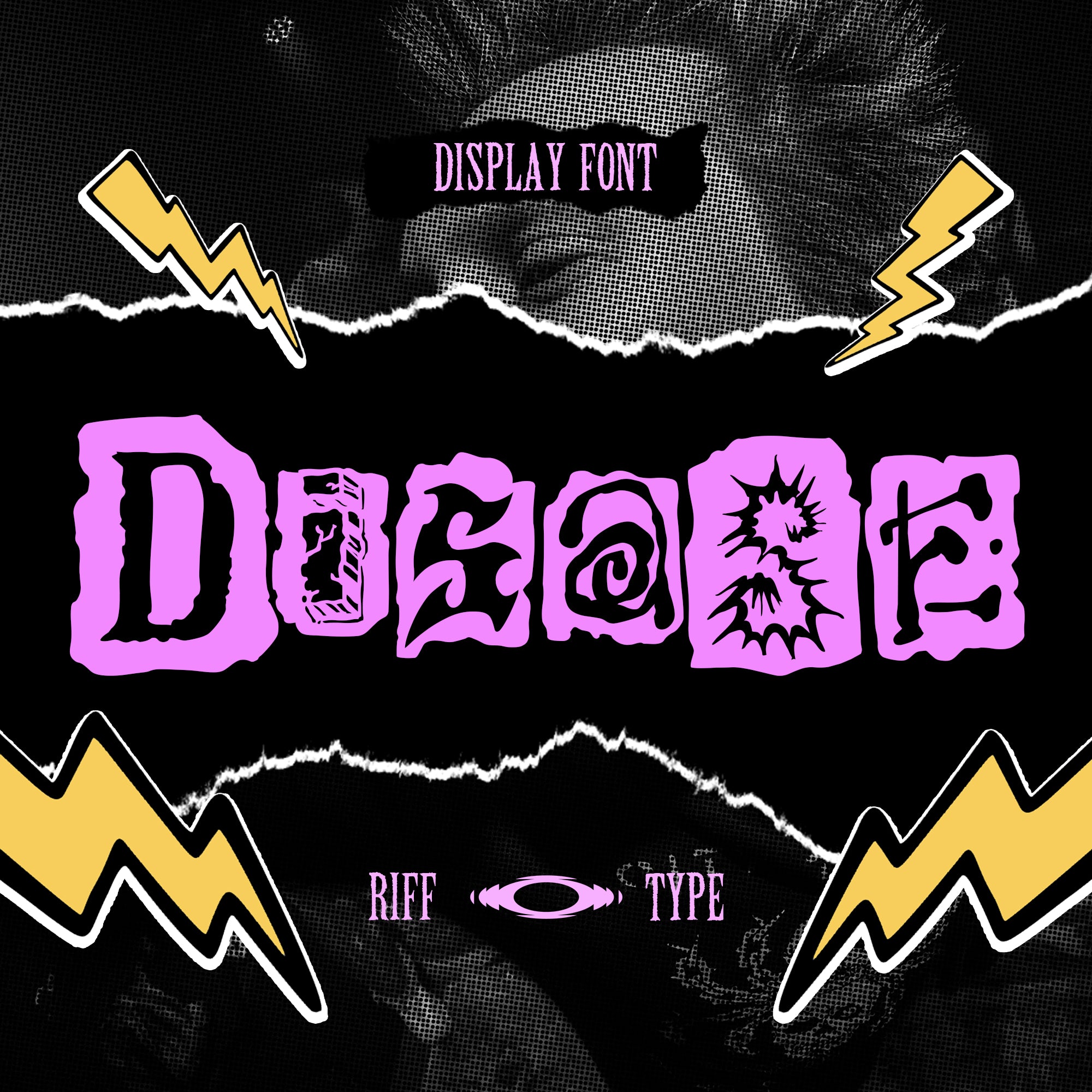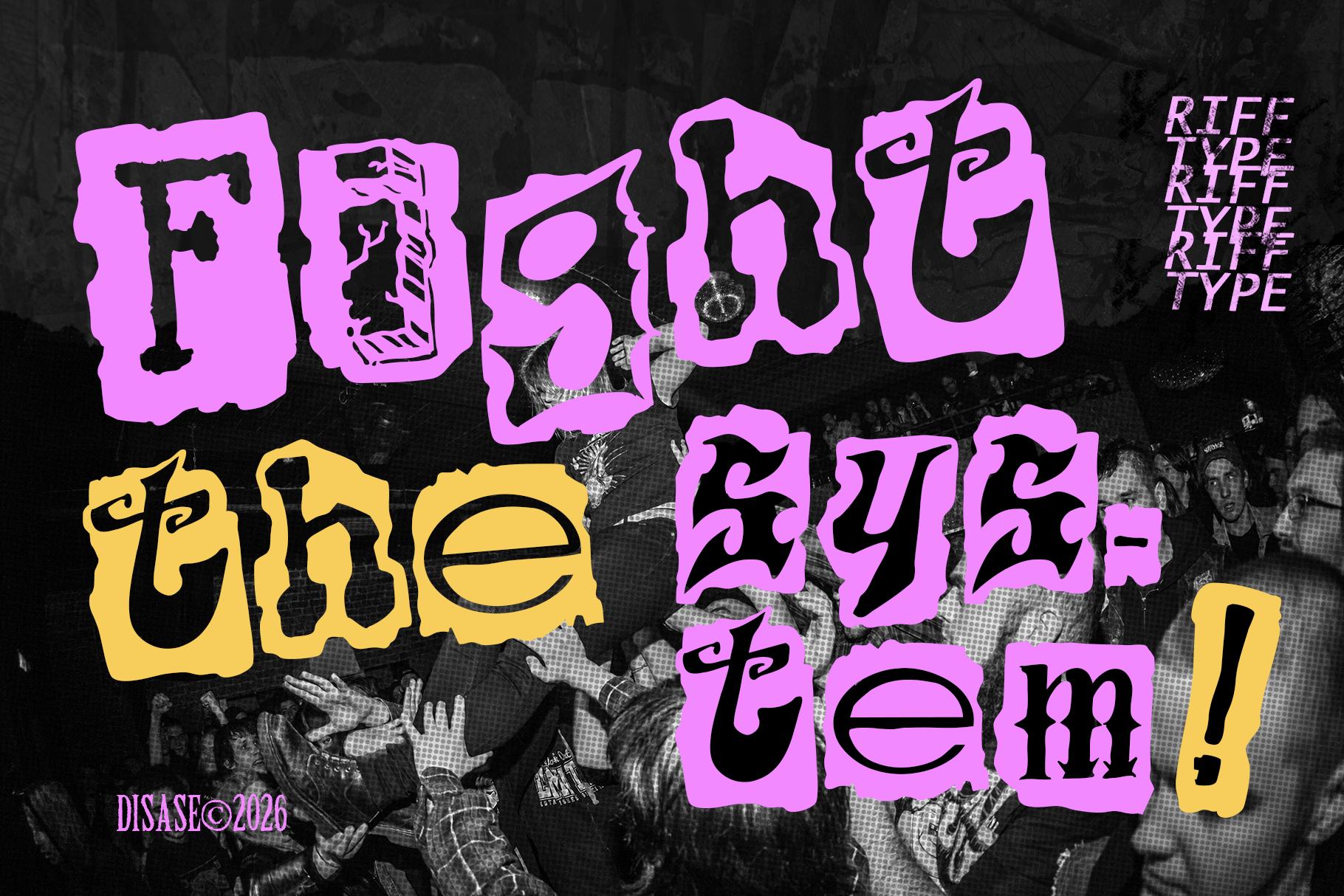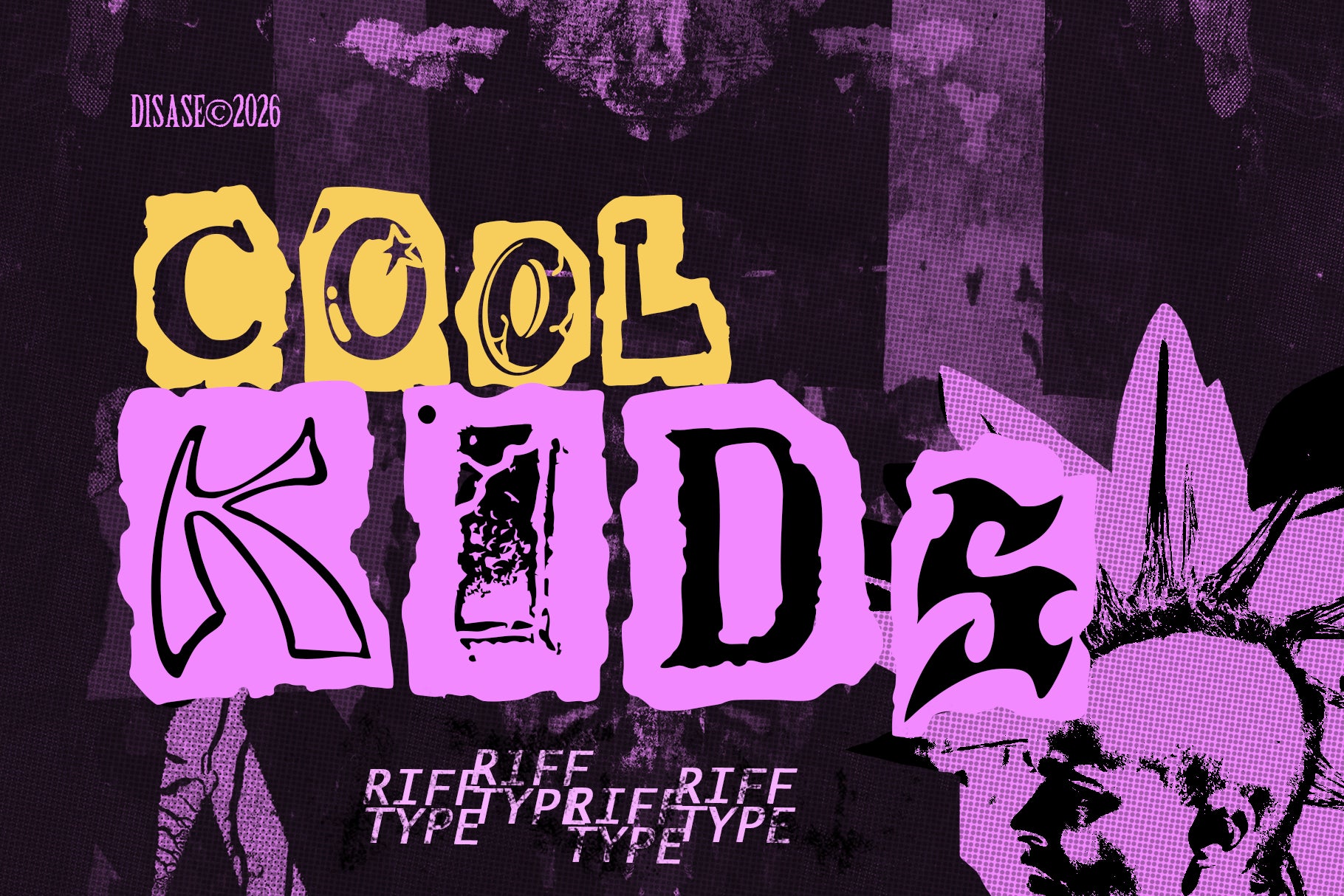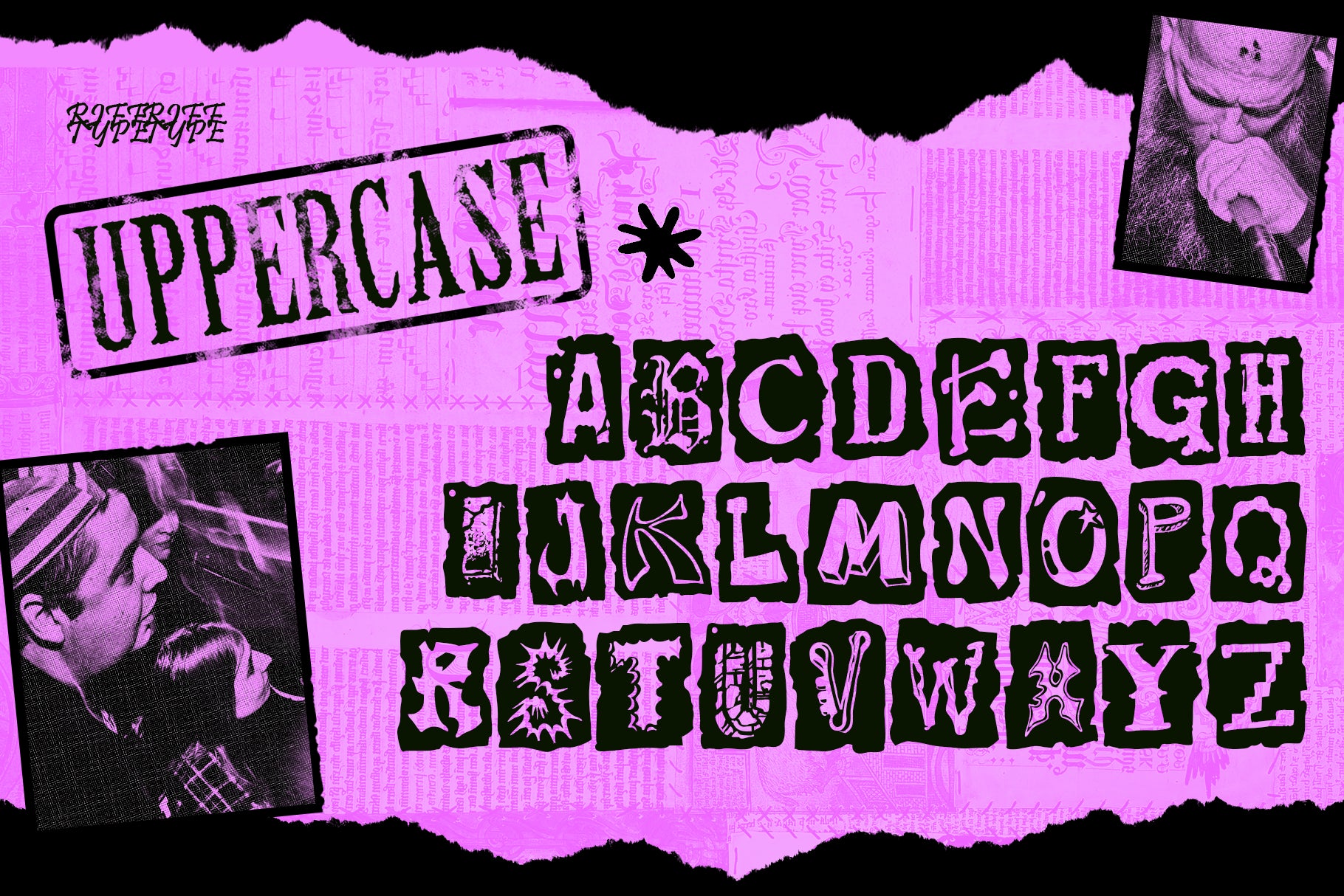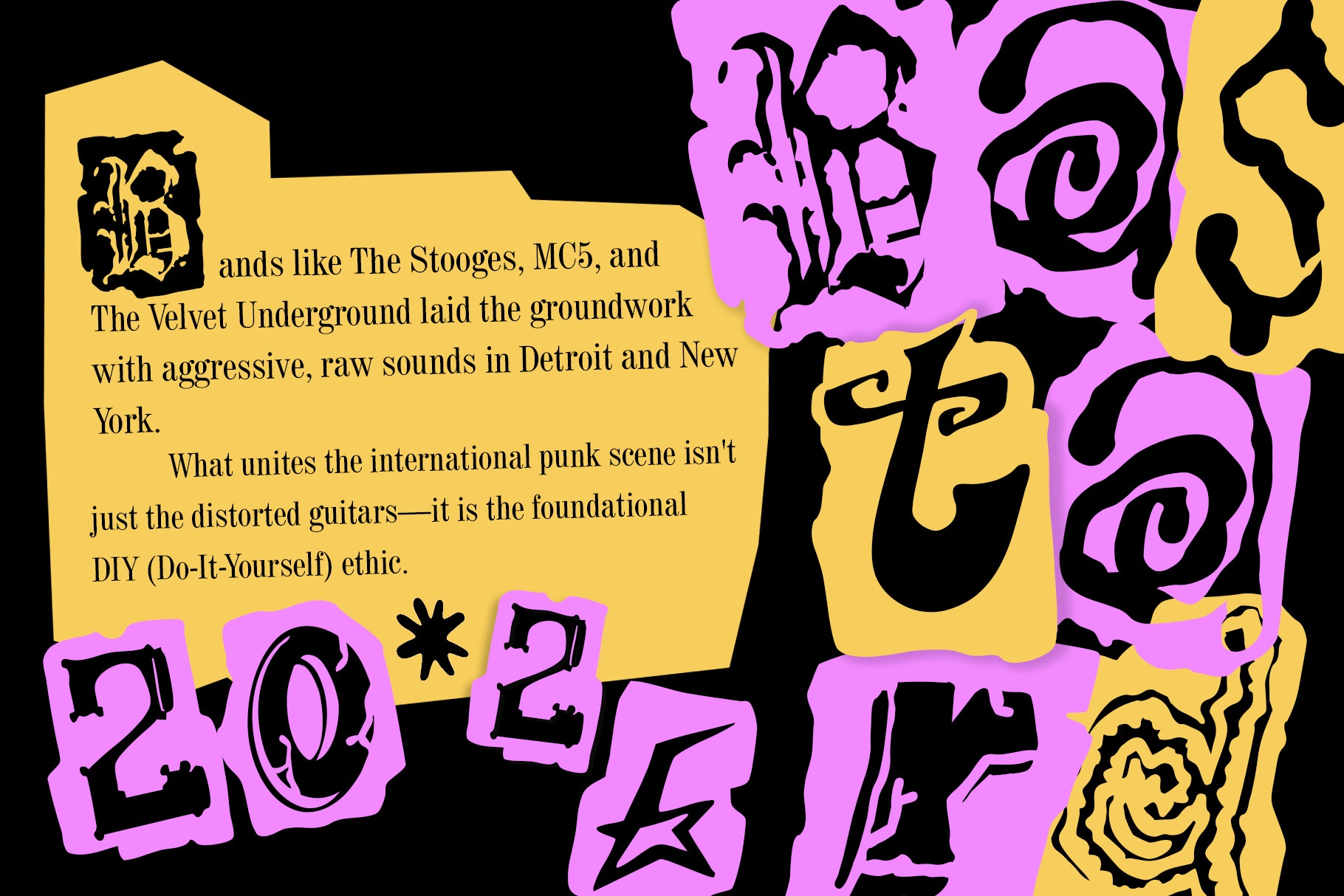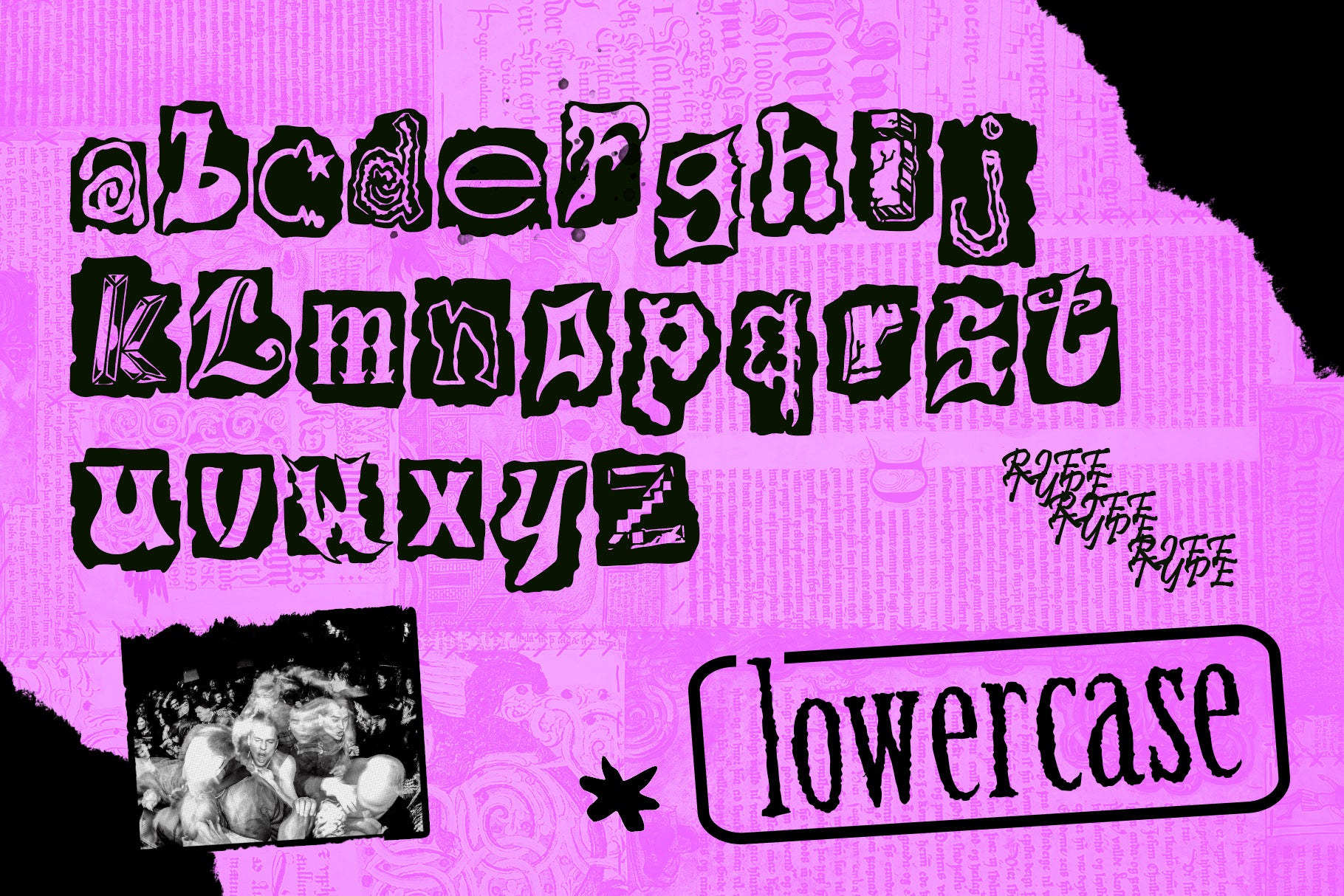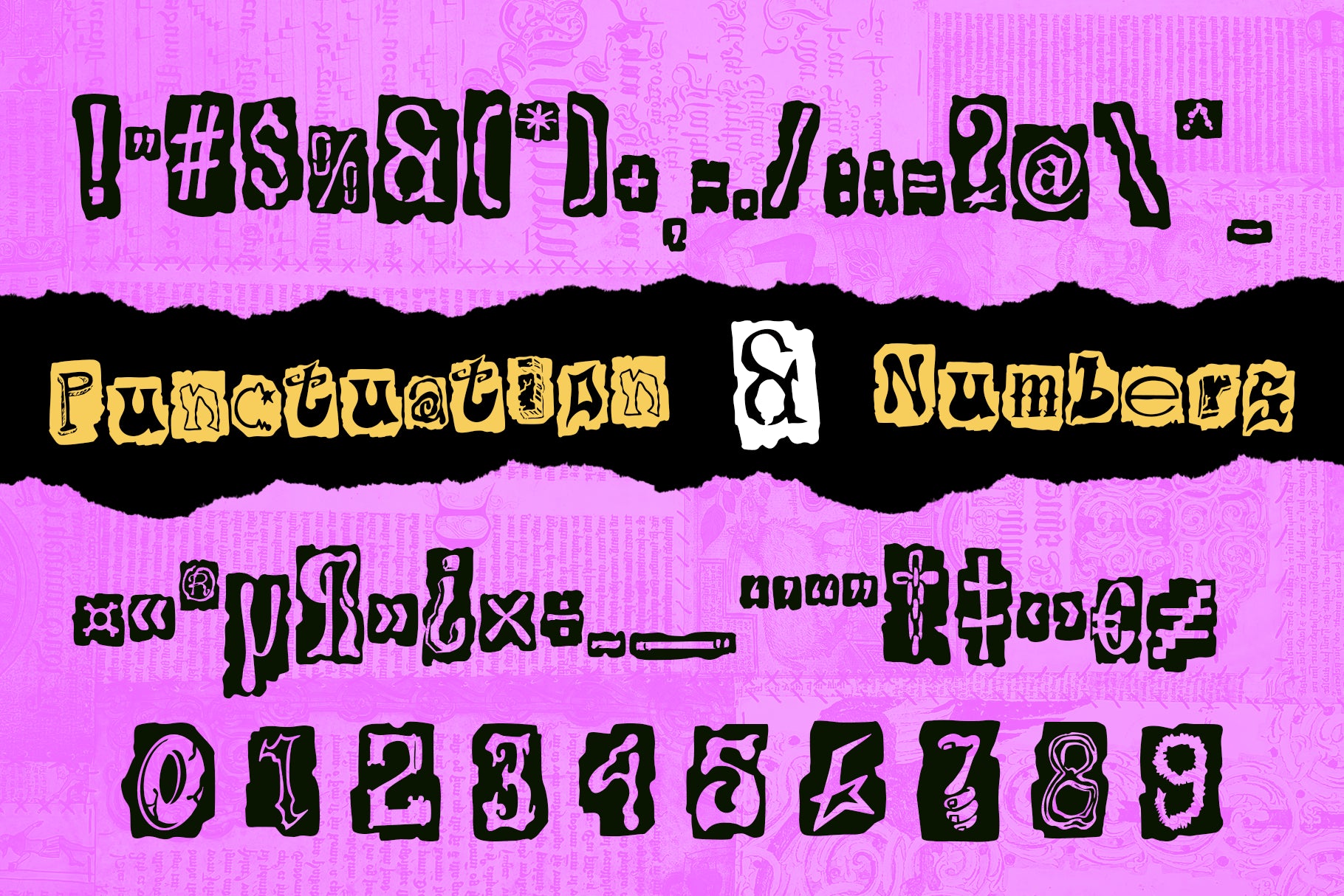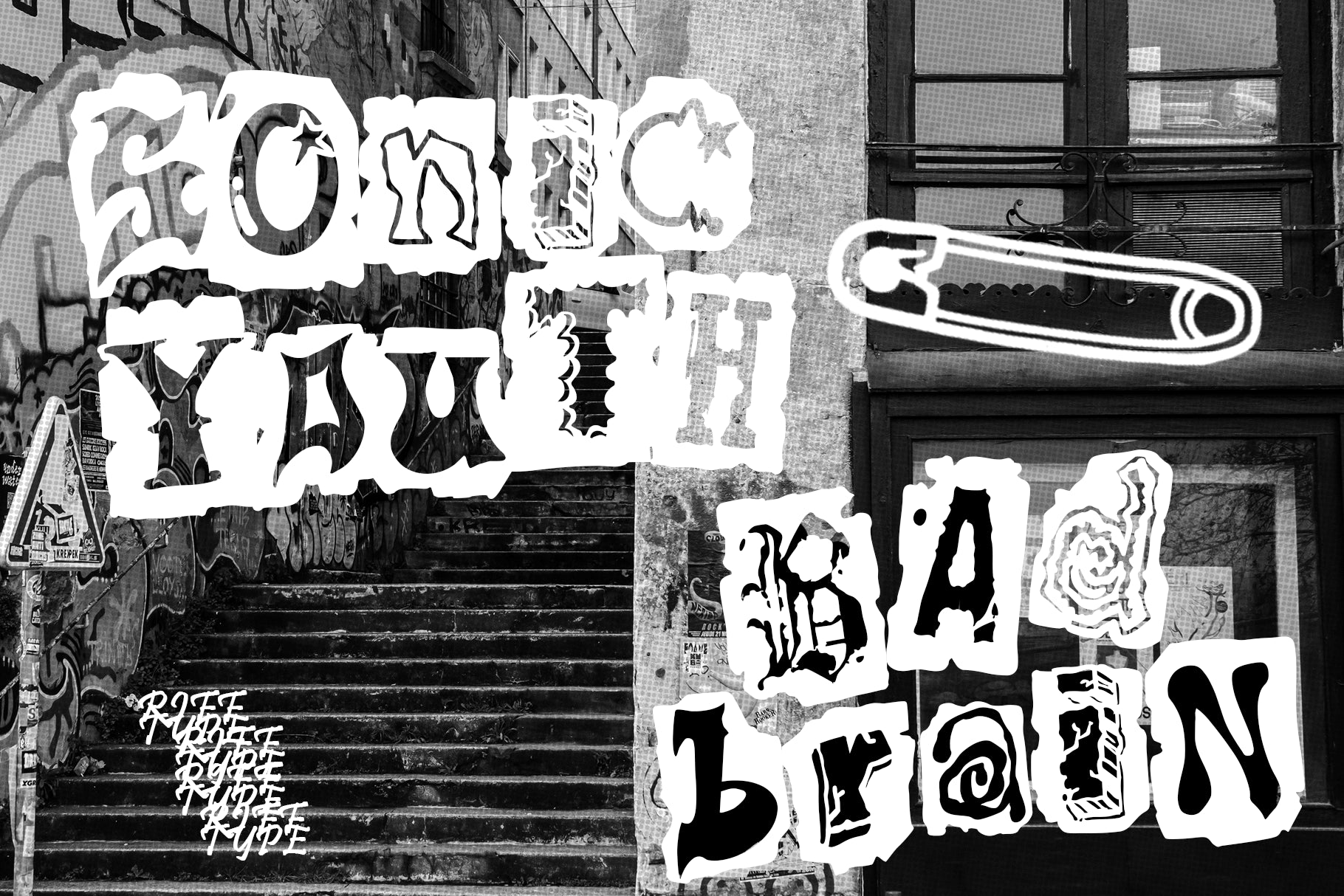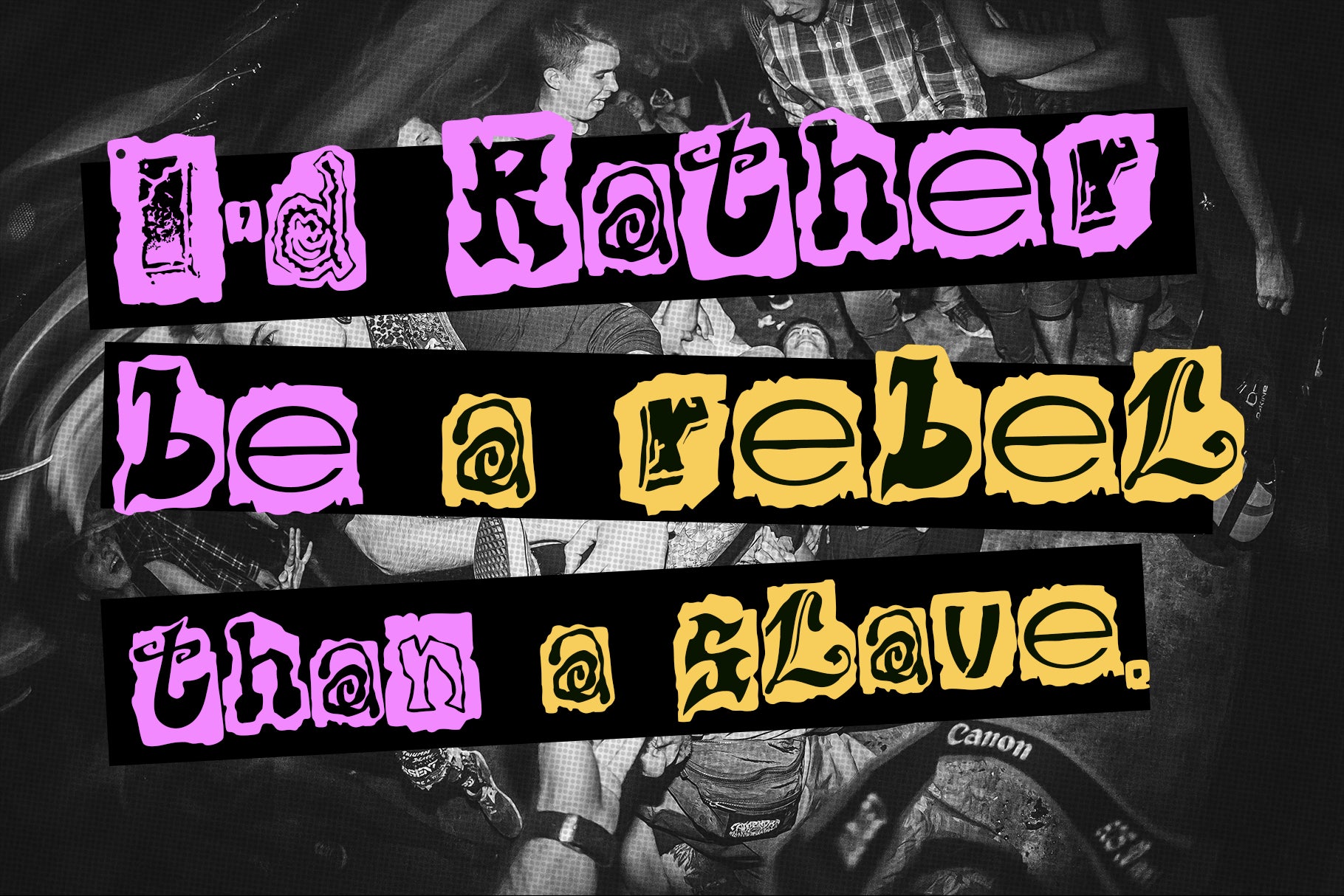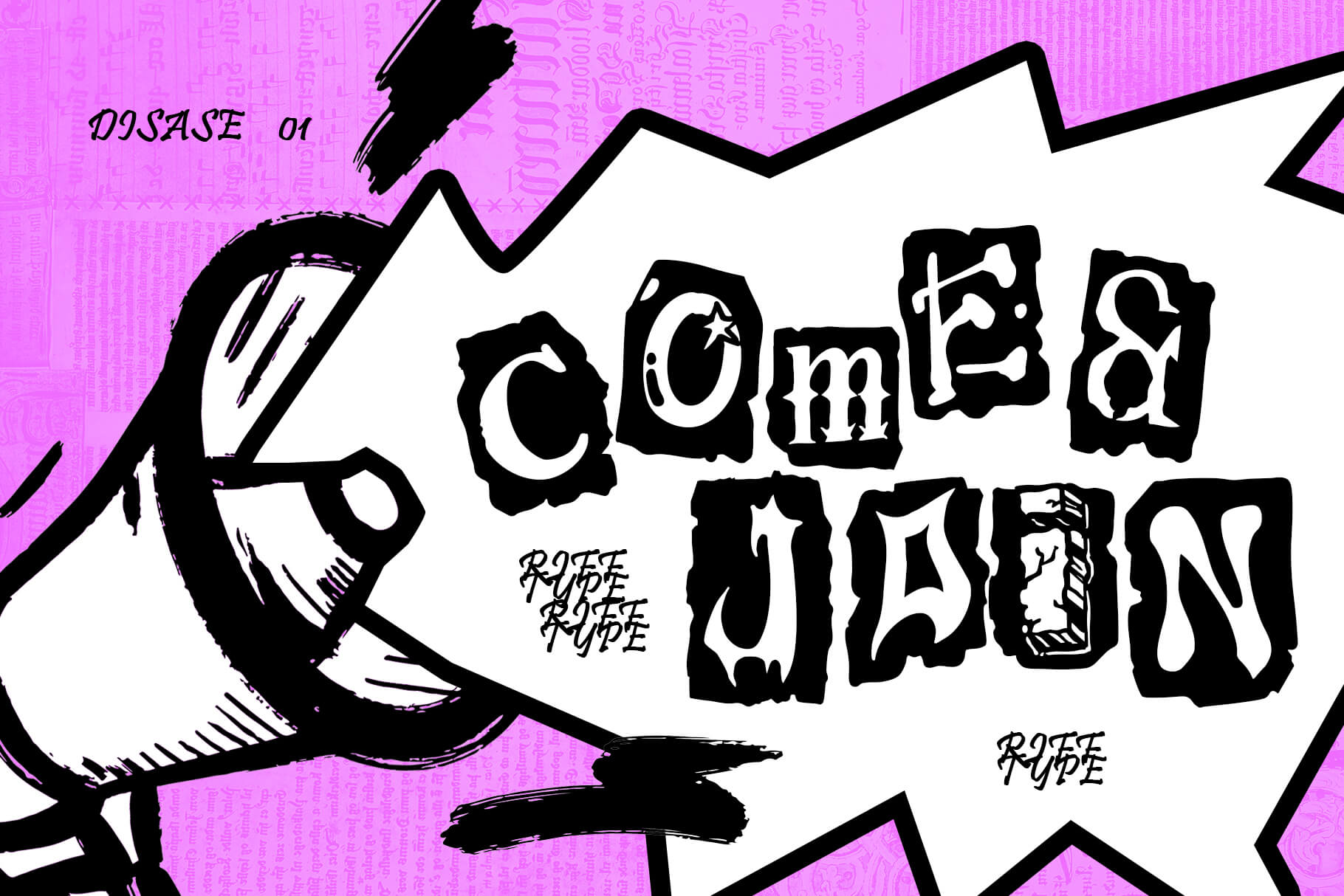
DISASE - Ransom Punk Collage Font
Disease is an experimental, mixed-media display font inspired by the raw, unhinged energy of underground zines, anti-design posters, and DIY punk collage art. Instead of uniform characters, this typeface treats every single letter as an individual piece of art, mimicking a chaotic, distorted ransom note ripped straight from a punk rock flyer.
Every character is encased in a heavy, rough-cut paper silhouette, giving your text an instant, multi-layered collage effect without any extra design effort. Perfect for: Radical Album Art (Punk, Industrial, Trap Metal), Underground Gig Flyers, and Edgy Editorial Design.
DISASE - Ransom Punk Collage Font is an experimental, mixed-media display typeface featuring unique, individually designed characters that resemble a chaotic ransom note aesthetic. The font package includes TTF, OTF, WOFF, and WOFF2 file formats for versatile use.